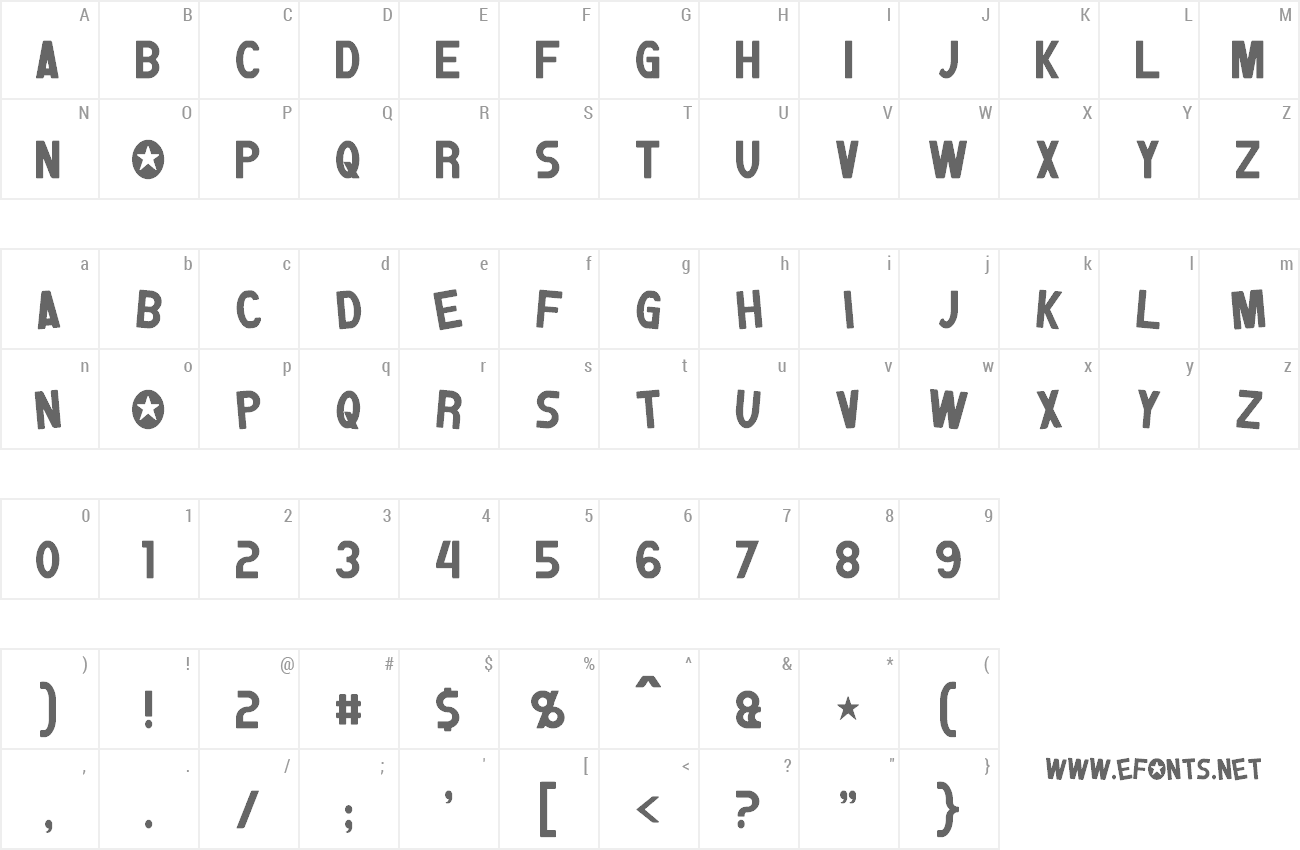
| Font name: | Jumpman |
| Author: | Pixel Sagas |
| Note by Pixel Sagas | |
| A simple deco font based on the logo of the original Donkey Kong game from Nintendo Entertainment. Includes full alphabet, extended punctuation, Euro. |